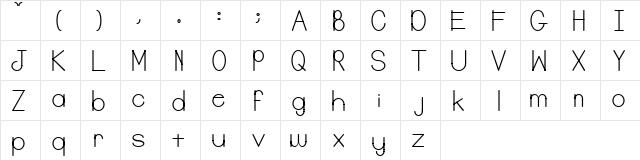
Balker Regular Font Preview
Balker Regular
Balker Regular Font Details
Design Context for Balker Typeface
Balker is a composed and adaptable typeface that performs quietly and consistently across a wide range of design contexts.